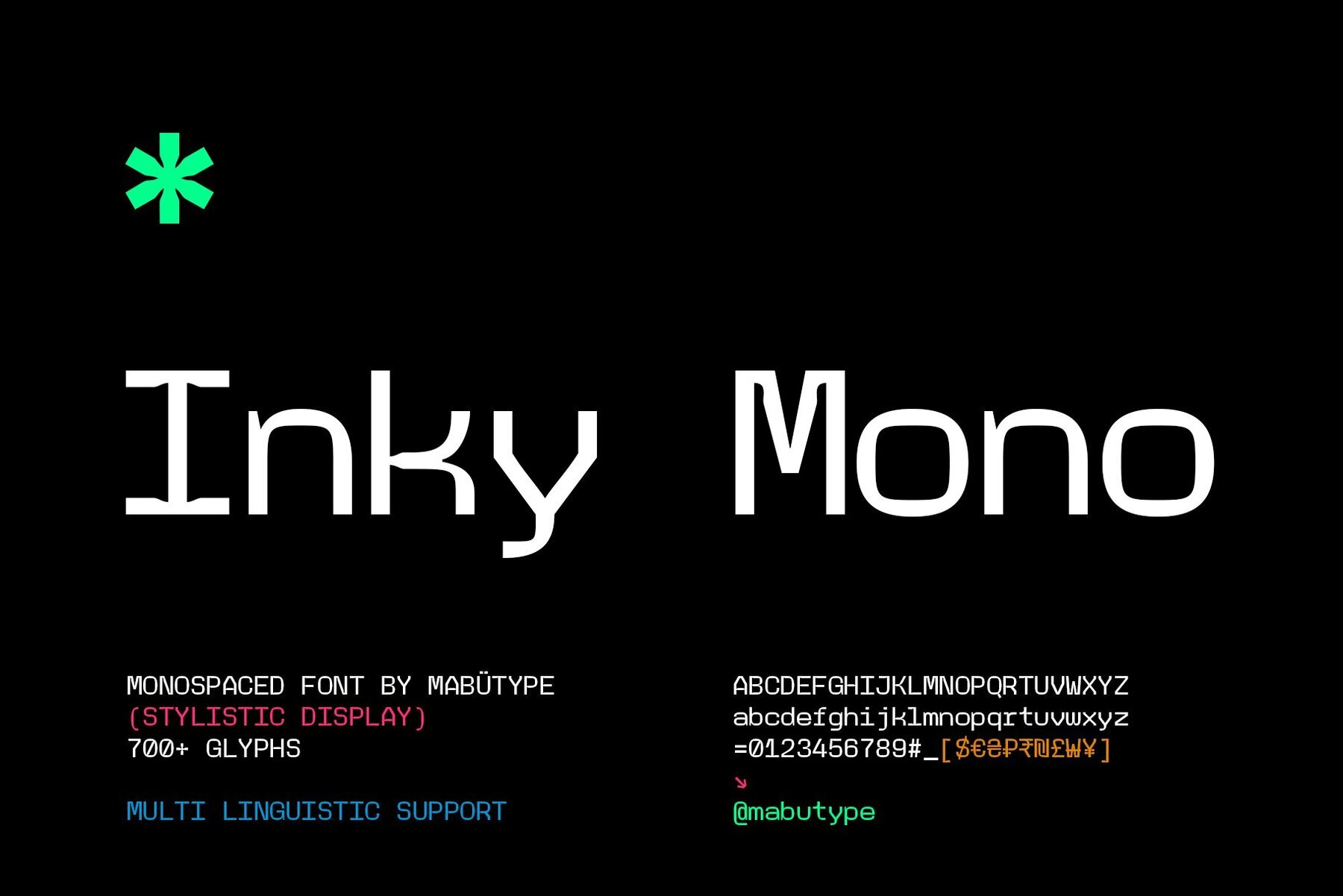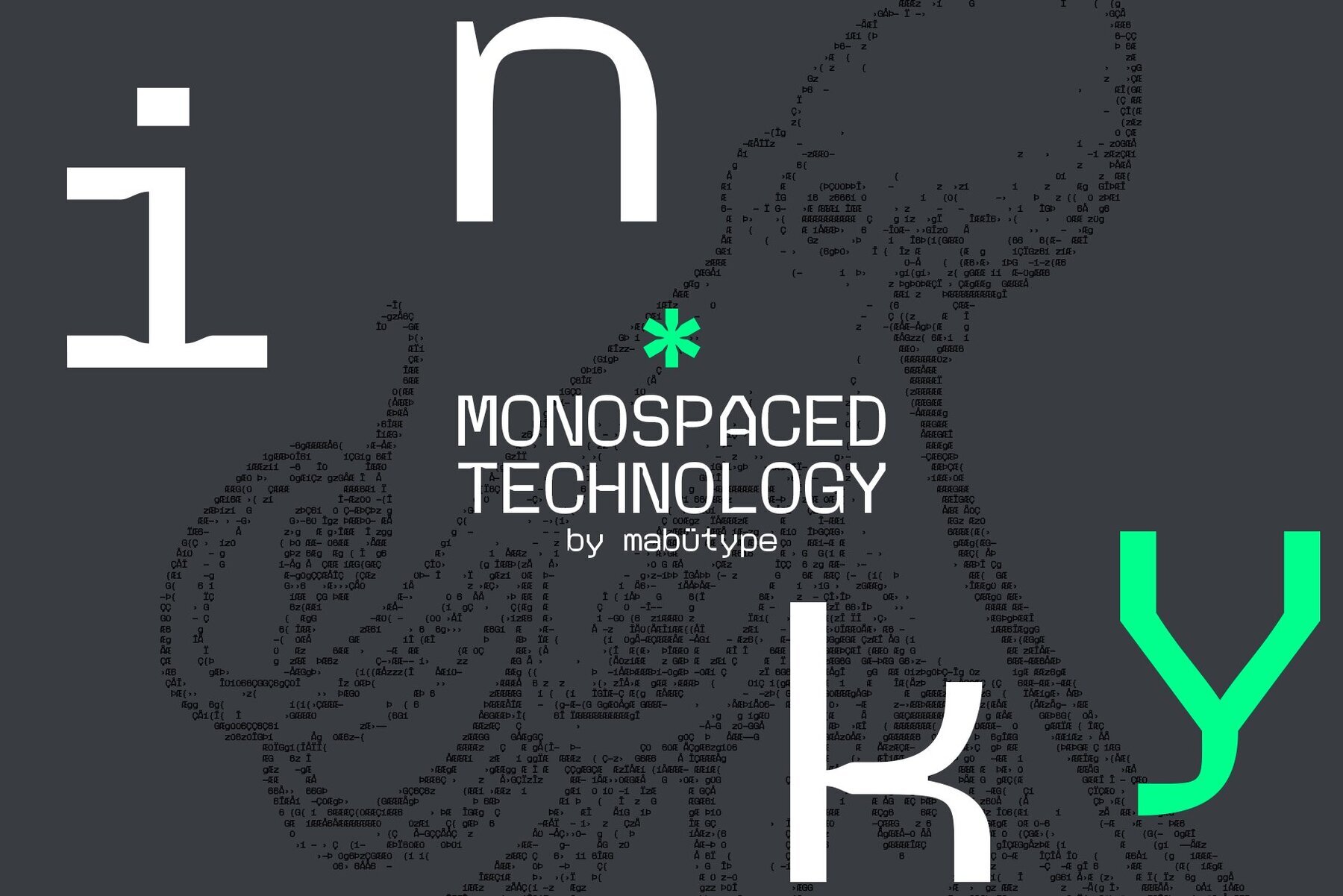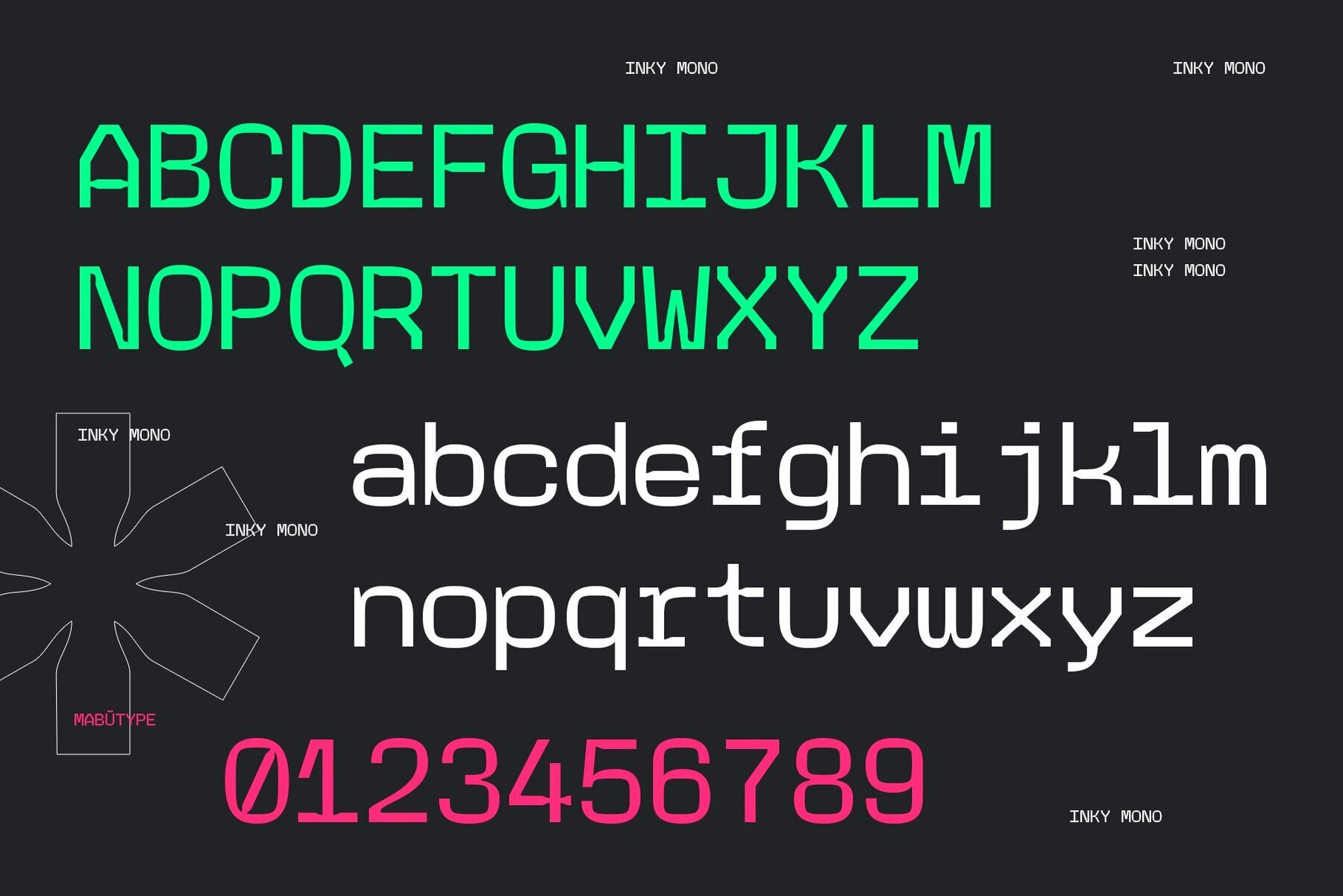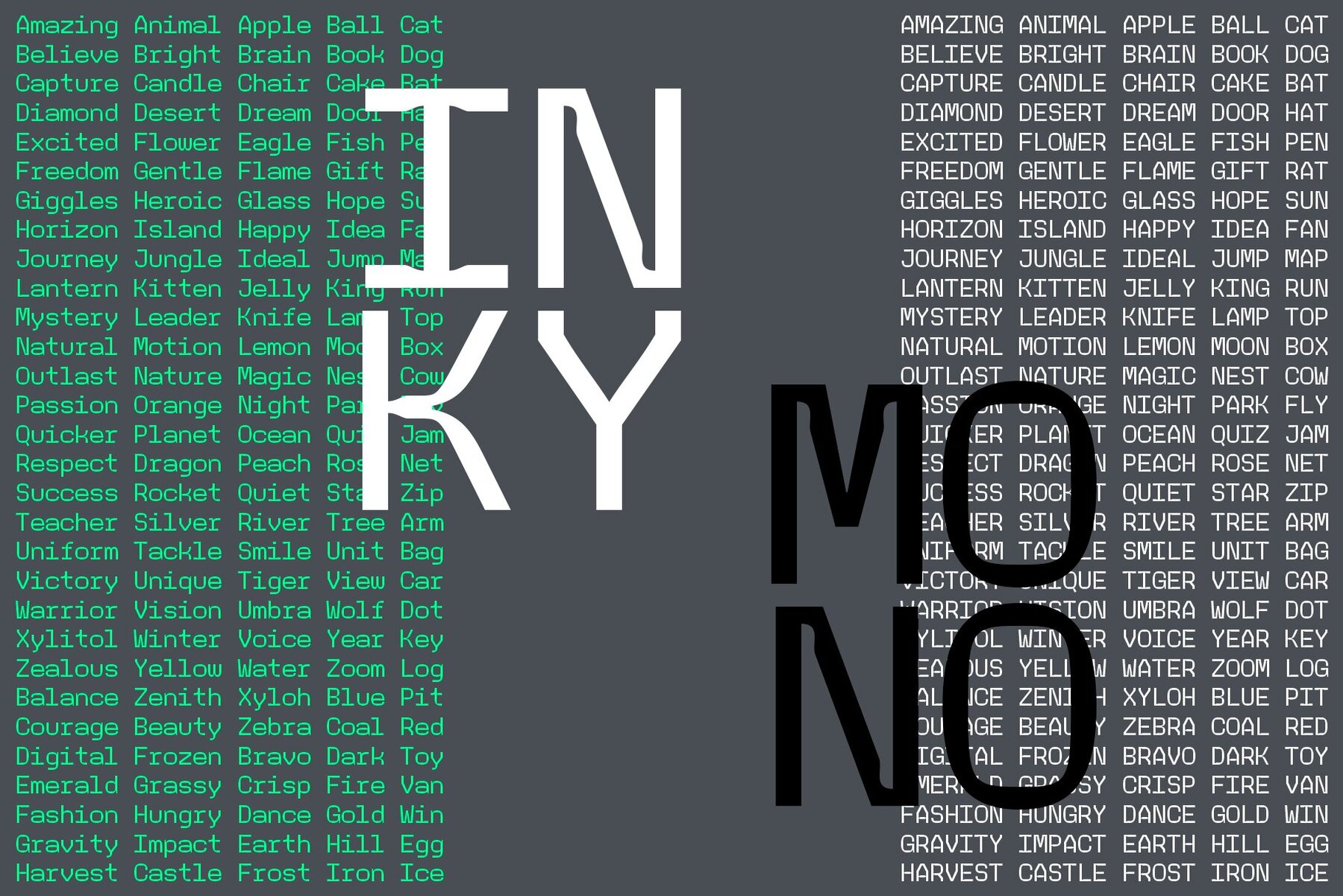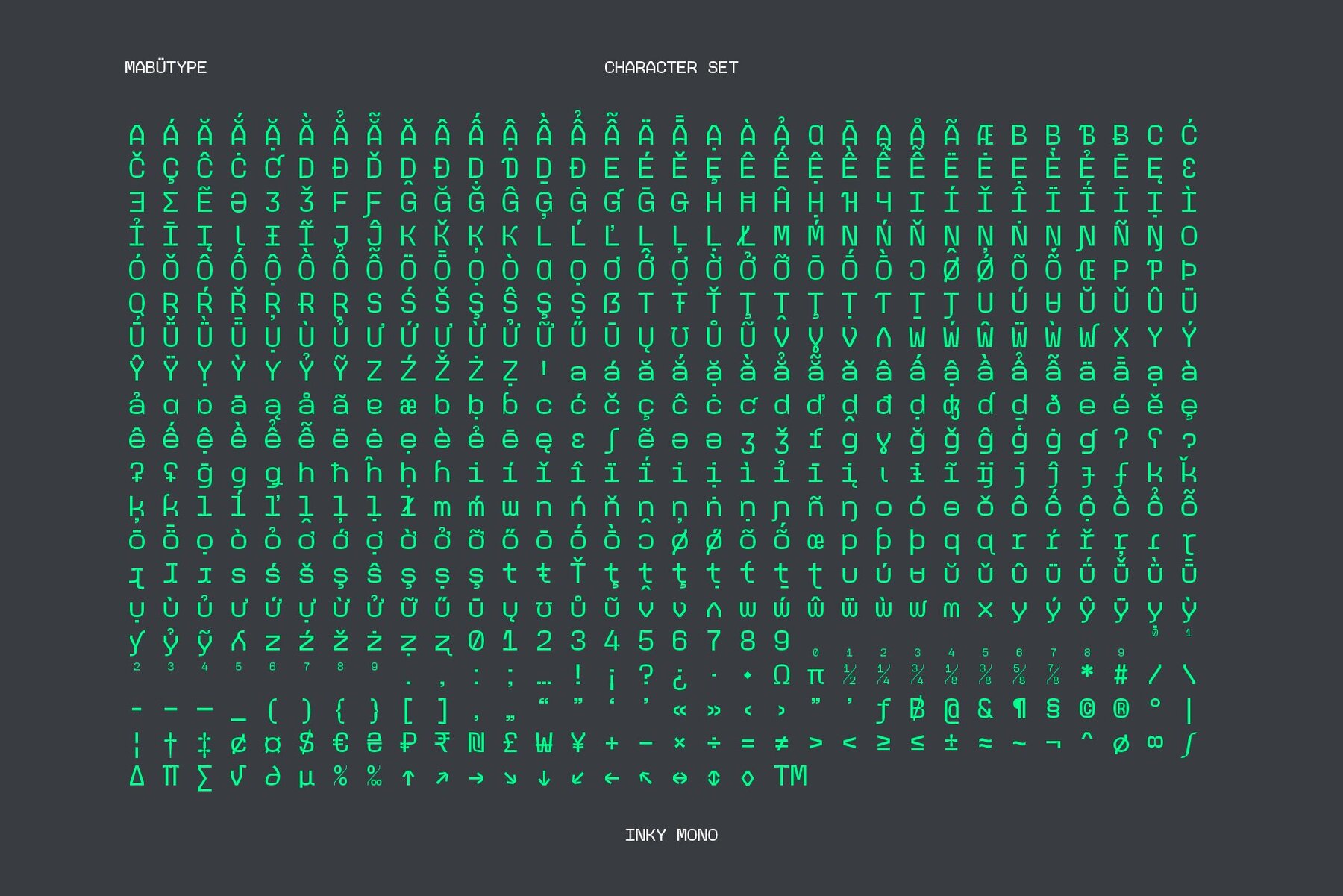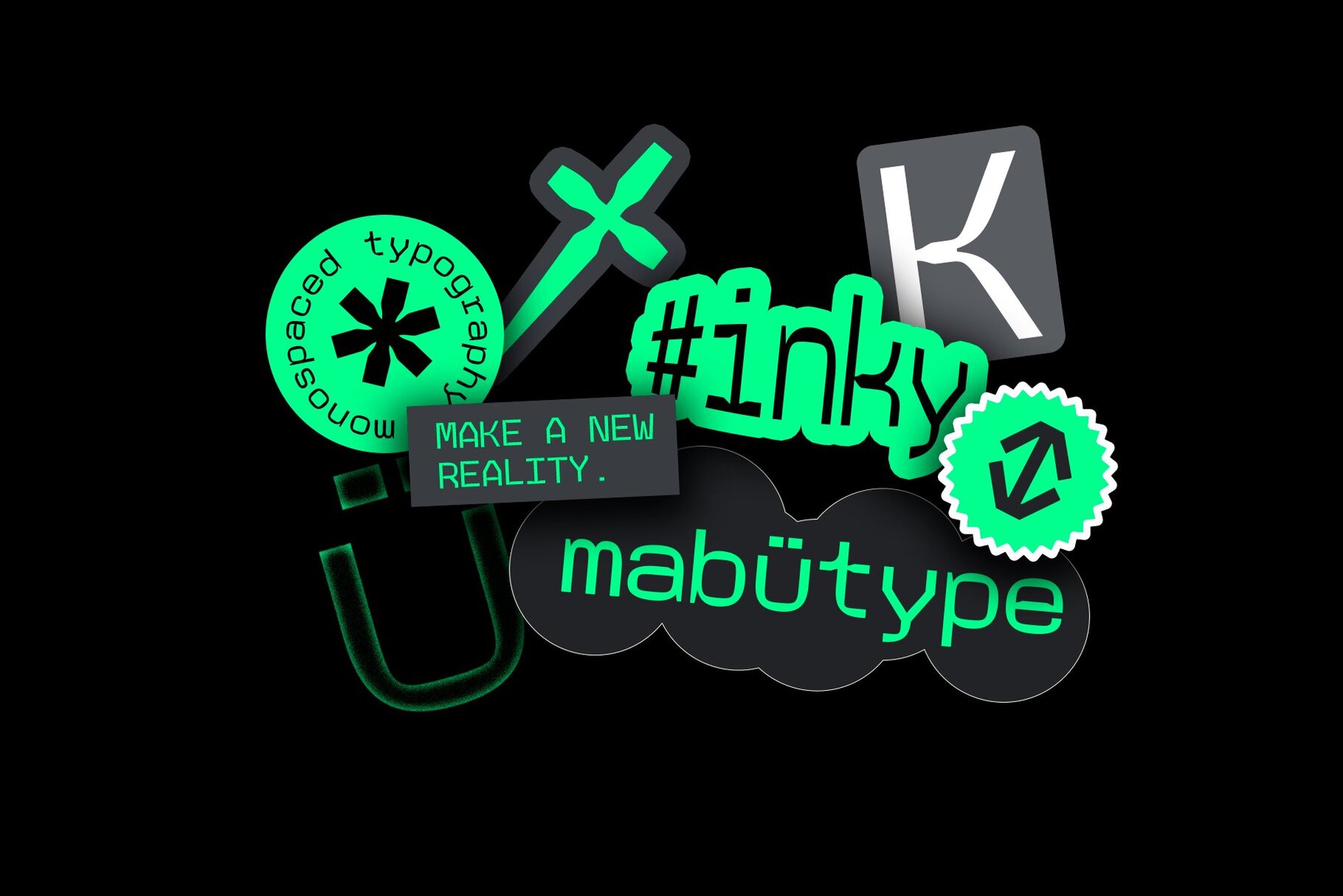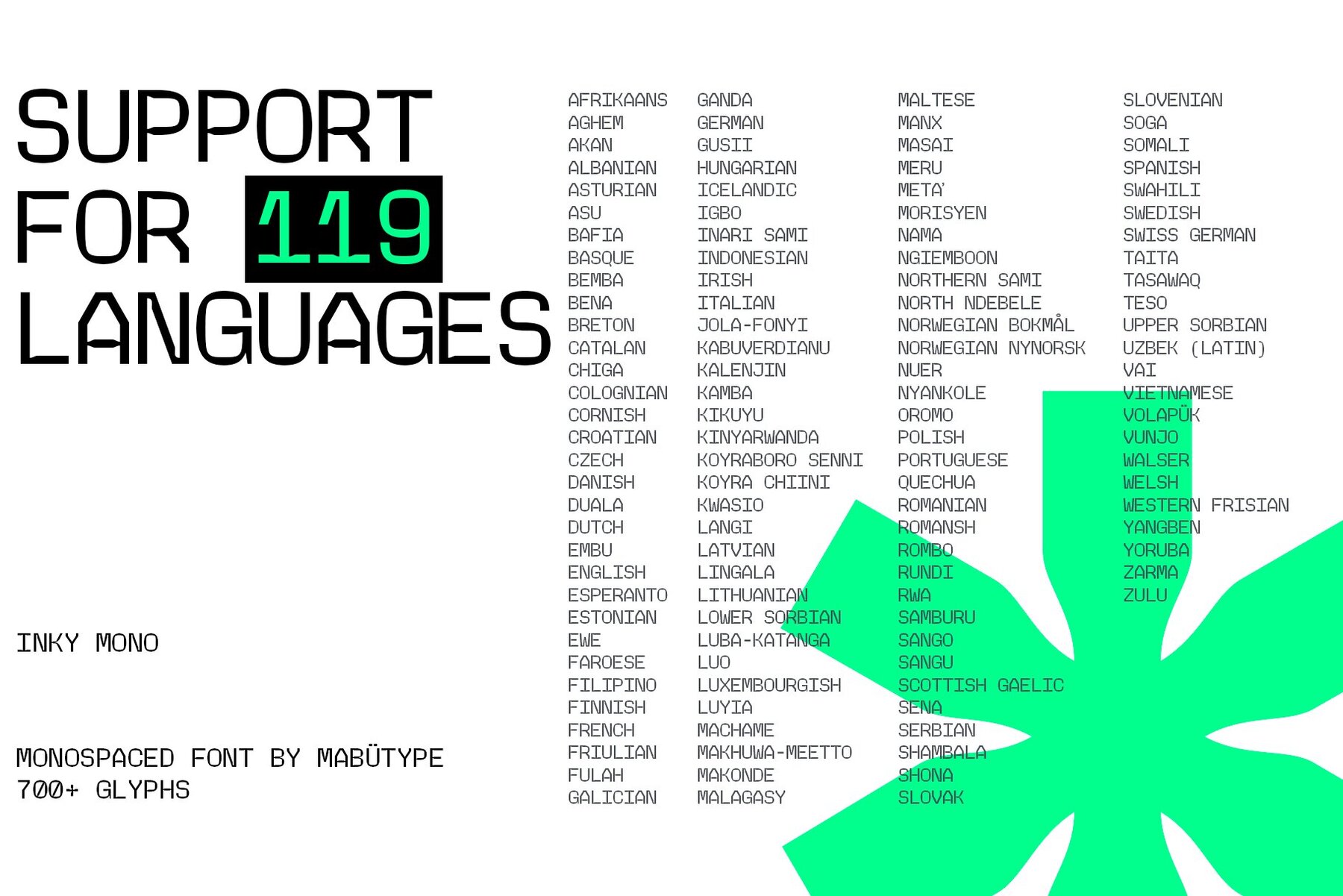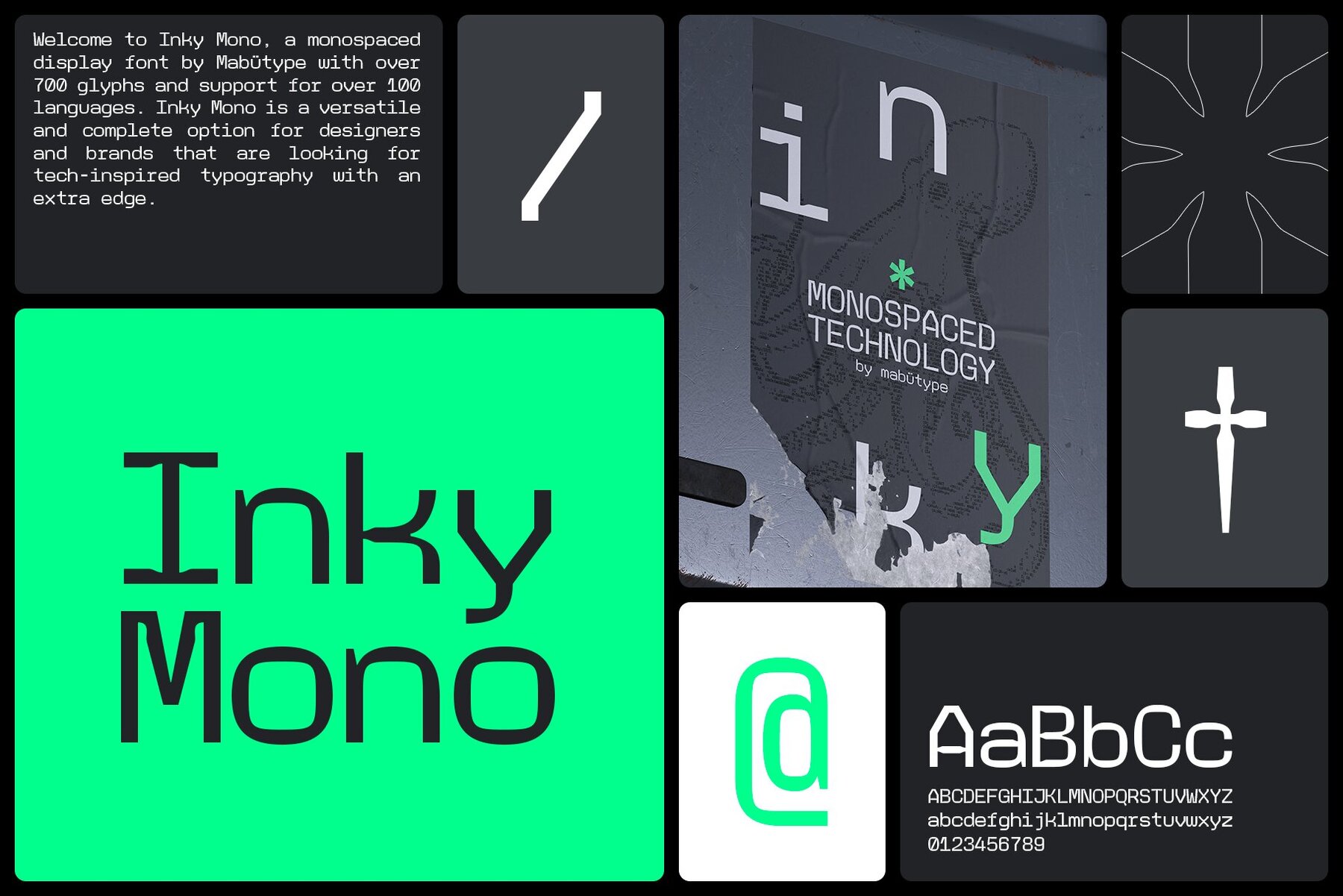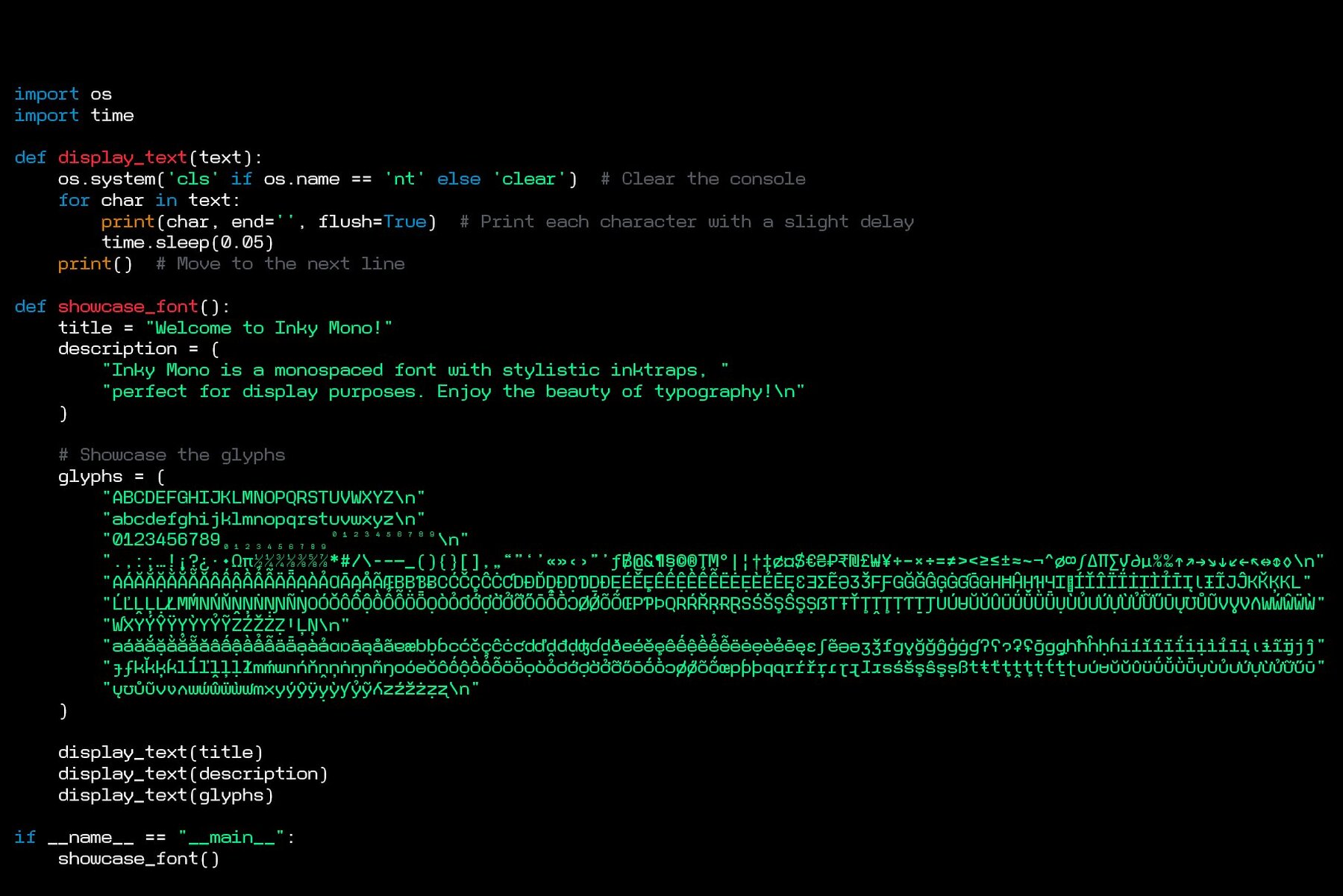
Inky Mono Font
Inky Mono
Inky Mono is a distinct monospaced display typeface offering more than 700 glyphs and extensive multilingual support. It's an ideal choice for designers seeking a technologically-inspired aesthetic, seamlessly blending functionality with style. This versatile typeface is carefully crafted to enhance projects that demand a unique and precise typographic expression.
Perfect for both digital and print designs, Inky Mono stands out with its precise alignment and uniformity, making it exceptional for coding, data visualization, and modern creative projects. Its wide language support ensures accessibility for diverse audiences, while its comprehensive set of glyphs allows for creative flexibility. Inky Mono is the smart choice for those who want a font that combines technical rigor with artistic flair.